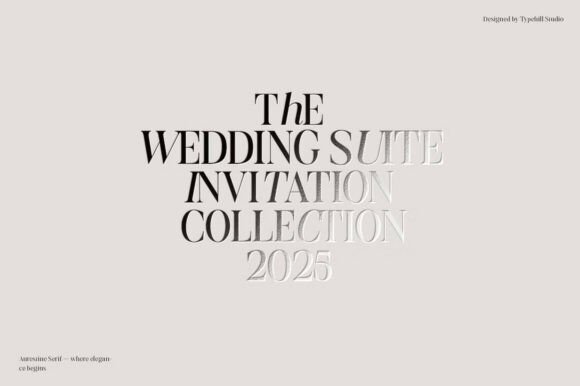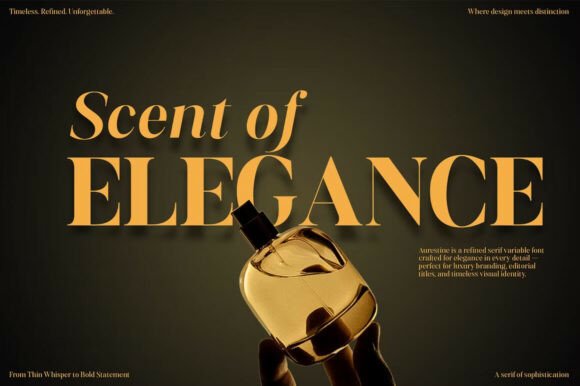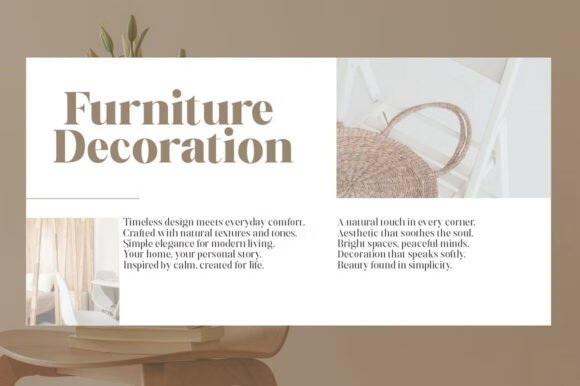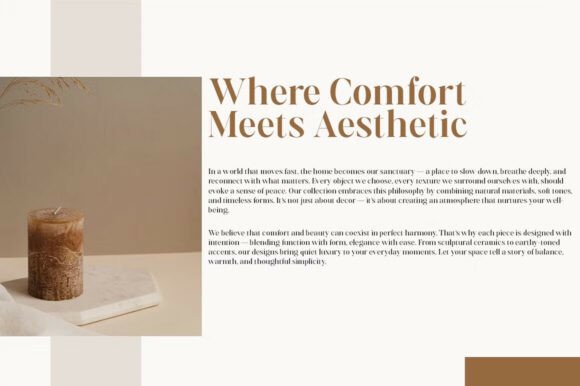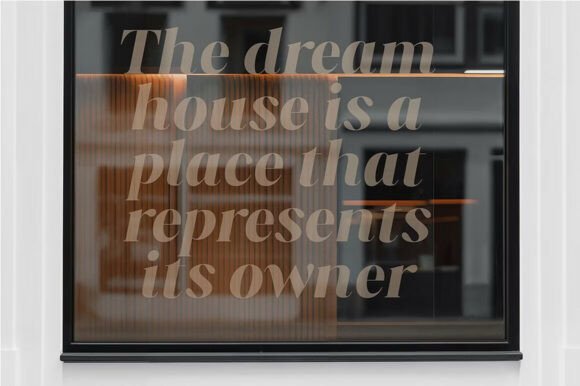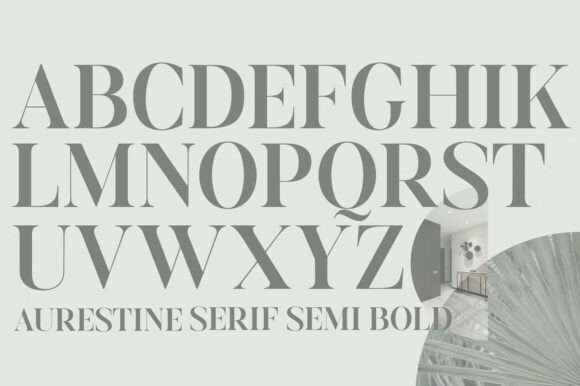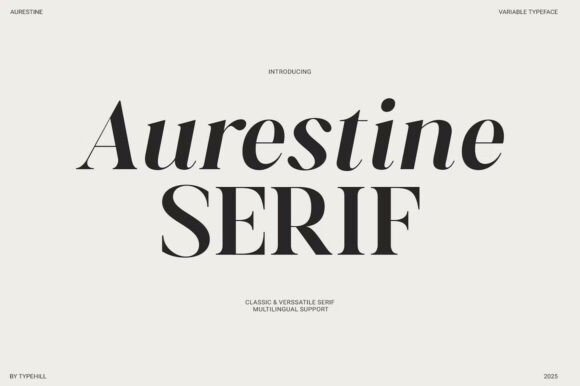
Aurestine Serif Bold Font: Elevate Your Design with Elegant Versatility
In the realm of typography, a well-crafted font can elevate a design from ordinary to extraordinary. Introducing Aurestine Serif Variable Typeface, a refined serif font that embodies elegance, readability, and expressive design. With 18 meticulously designed styles, Aurestine offers a versatile solution for editorial layouts, branding, and sophisticated display typography.
A Timeless Serif Tradition with a Modern Twist
Aurestine Serif Variable is designed to evoke timeless serif traditions while embracing modern typographic needs. The font features graceful curves, classic proportions, and finely tuned contrast, making it an ideal choice for designers seeking a sophisticated and elegant look. From the delicate Thin to the commanding Black, each weight retains clarity and character, making it a reliable tool for both text and headline use.
Key Features of Aurestine Serif Bold Font
- 18 styles: 9 Upright & 9 Italic, offering fluid versatility for various design applications.
- Variable font included: Weight axis allows for seamless transitions between weights.
- Extended Latin character set: Supporting a wide range of languages and characters.
- Beautiful typographic details: Soft sharpness and finely tuned contrast create a sophisticated look.
The Power of Italic Styles
The Italic styles in Aurestine Serif Bold Font are not just slanted versions of the upright fonts. Instead, they are thoughtfully drawn to convey fluidity and warmth, perfect for emphasis or artistic flair. This attention to detail makes Aurestine an excellent choice for designers seeking to add a touch of elegance to their work.
Ideal for Branding and Editorial Design
Aurestine Serif Variable Typeface is ideal for branding, editorial layouts, and sophisticated display typography. The font’s elegant and refined design makes it perfect for:
- Magazines and newspapers: Aurestine’s clarity and readability make it an excellent choice for body text.
- Branding and advertising: The font’s sophisticated look and feel make it perfect for logos, headlines, and marketing materials.
- Web design: Aurestine’s versatility and elegance make it an excellent choice for website typography.
Why Choose Aurestine Serif Bold Font?
Aurestine Serif Bold Font offers a unique combination of elegance, versatility, and sophistication, making it an excellent choice for designers and crafters. With its:
- Elegant design: Aurestine’s refined serif design makes it perfect for high-end branding and editorial design.
- Versatile styles: 18 styles, including 9 uprights and 9 matching italics, offer a wide range of design possibilities.
- Variable font: Seamlessly transition between weights to create a unique and customized look.
In conclusion, Aurestine Serif Variable Typeface is a powerful tool for designers seeking to elevate their work with elegant versatility. With its refined design, versatile styles, and variable font features, Aurestine is an excellent choice for branding, editorial design, and sophisticated display typography.